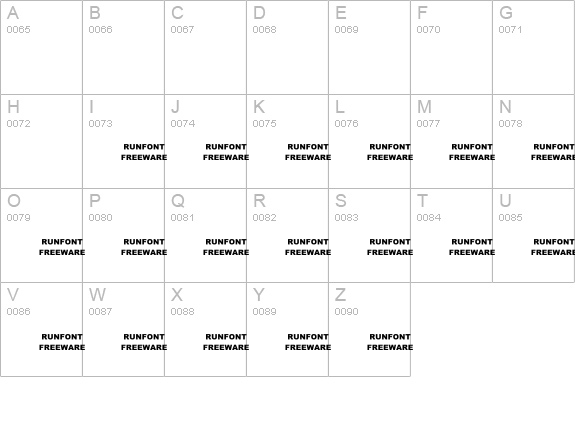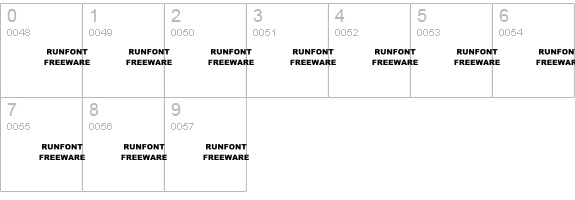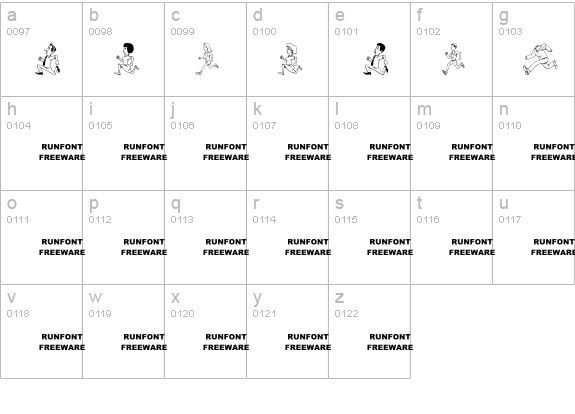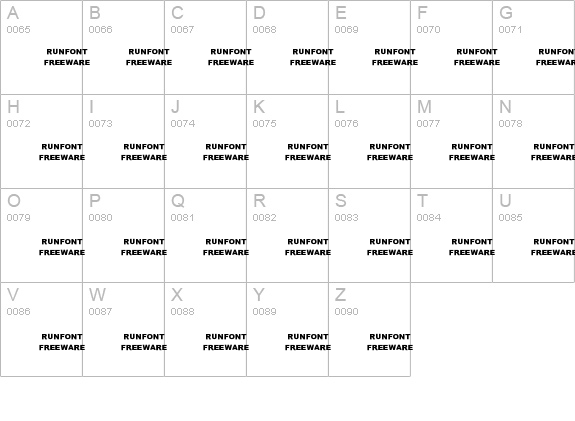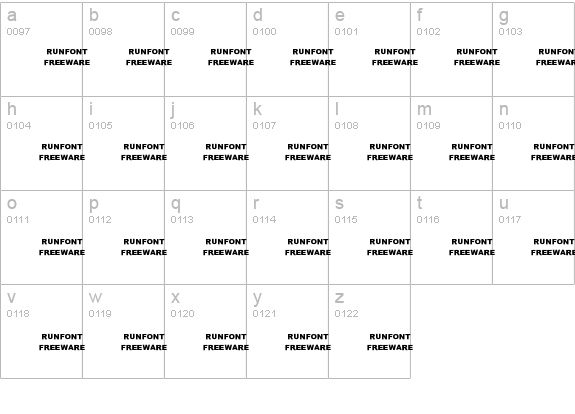
RUNFONT Font Details
Introducing RUNFONT - a dynamic and versatile font that breathes life into your designs with its sleek and modern aesthetic. This font is perfect for a wide range of projects, from branding to digital design, thanks to its clean lines and contemporary appeal. What sets RUNFONT apart is not only its striking visual impact but also its accessibility. Designed with creatives in mind, this font is freely available to download at FontsMarket.com, making it easy for designers and enthusiasts alike to incorporate it into their work without any restrictions. Whether you're looking to add a touch of sophistication to your next project or seeking a fresh and innovative font for your latest endeavor, look no further than RUNFONT. Embrace the freedom to create with this exceptional font and elevate your designs to new heights.